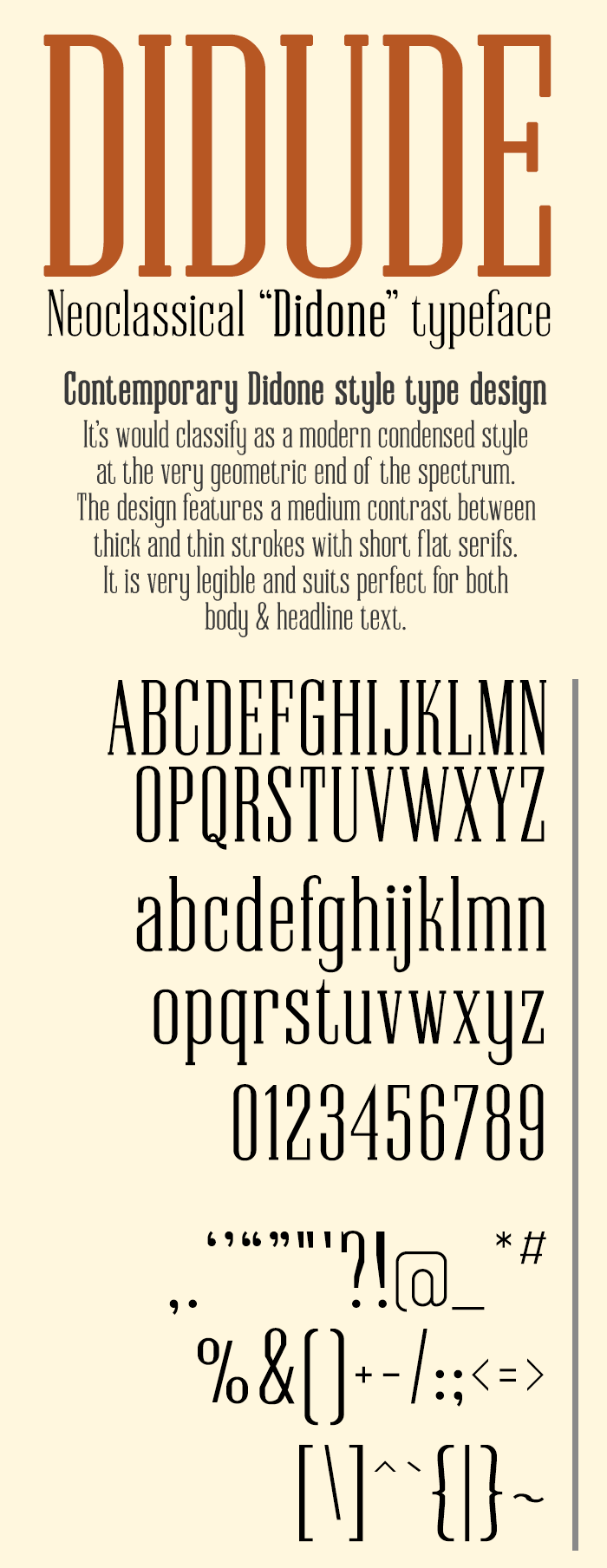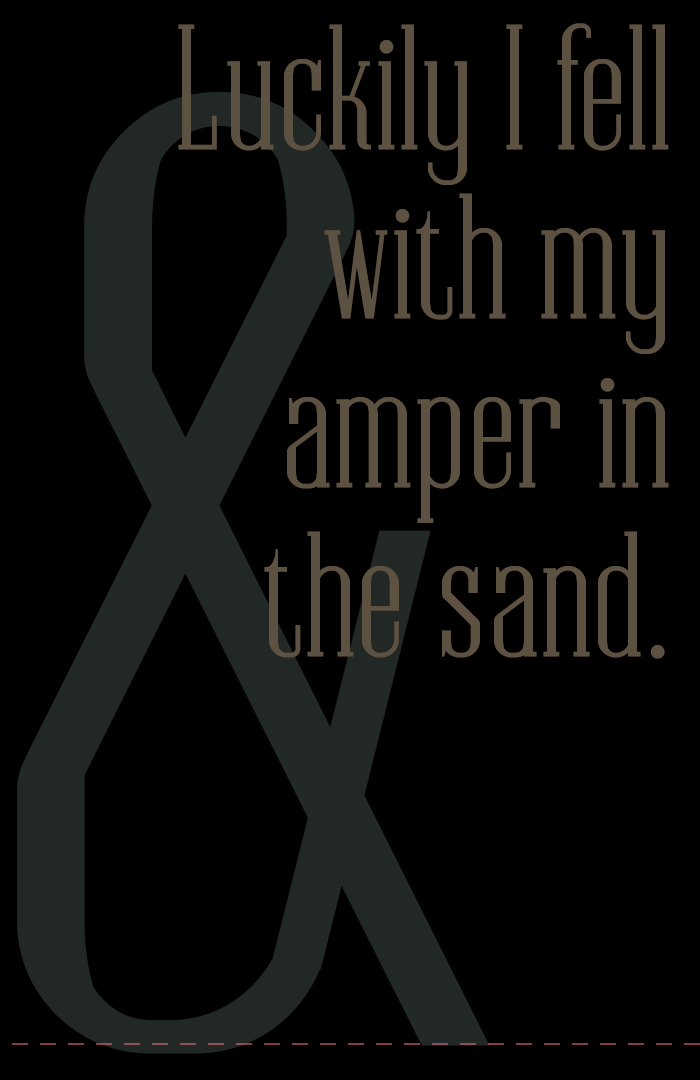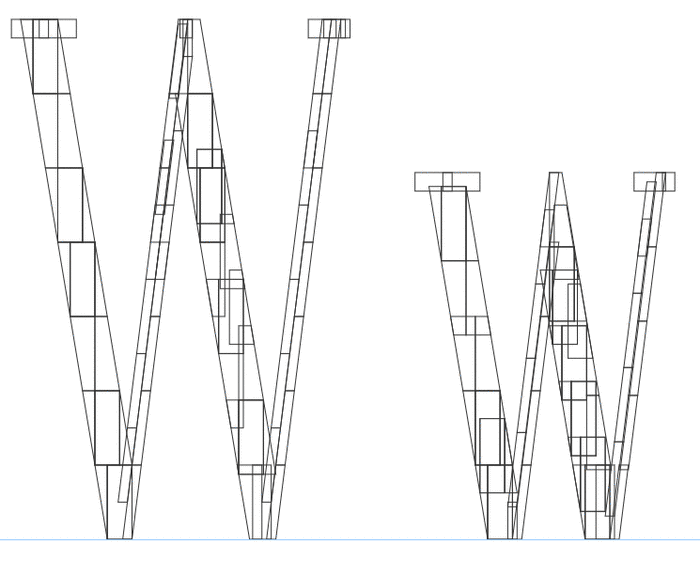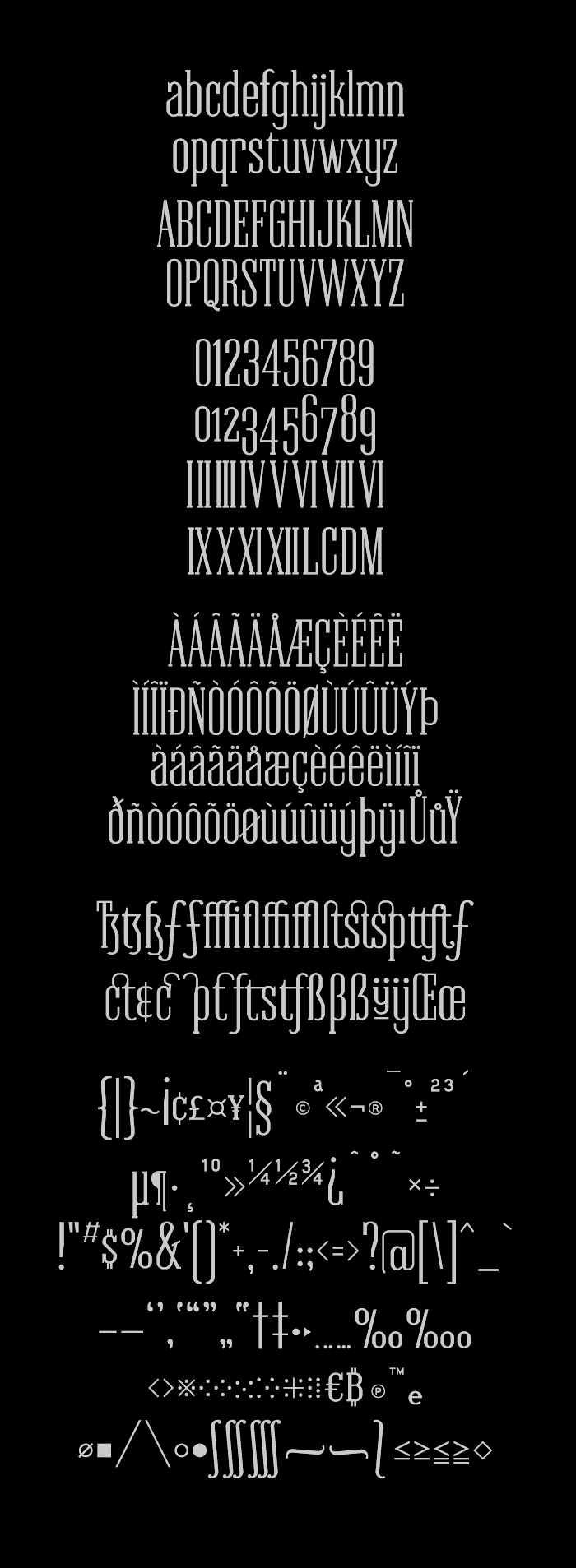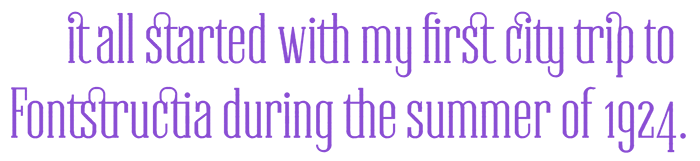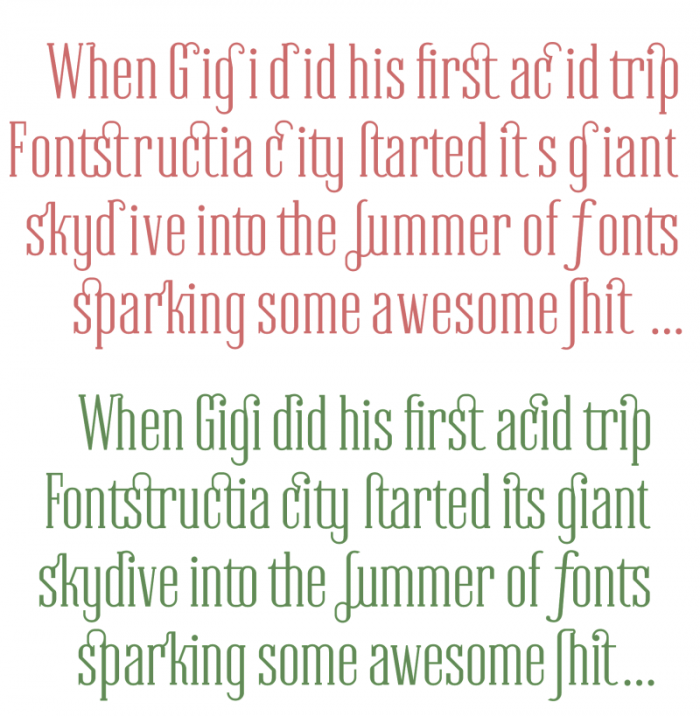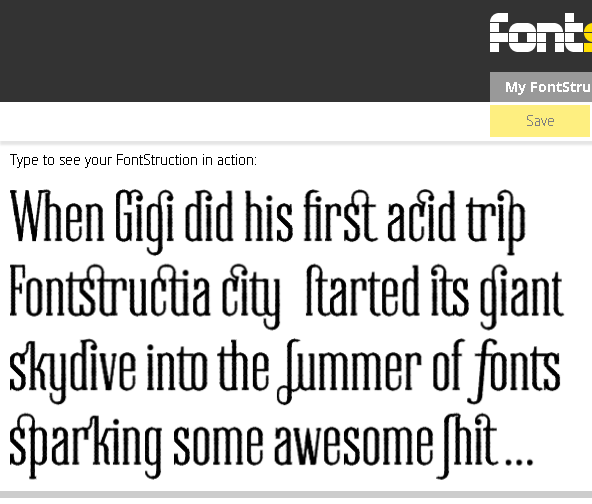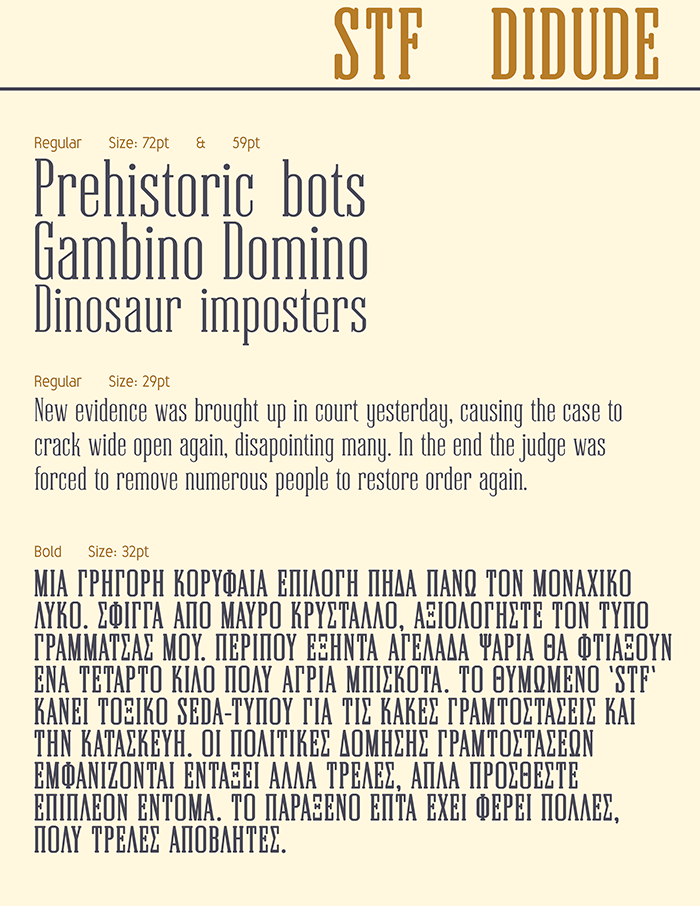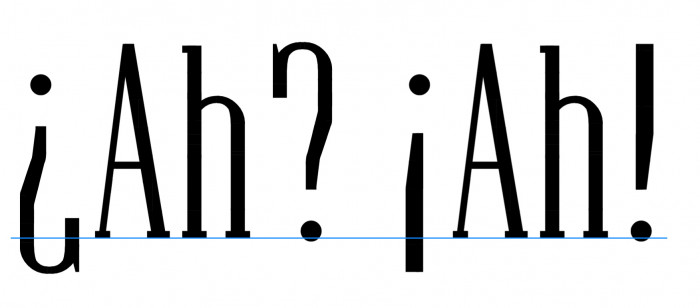
• DIDUDE (Condensed) ― Contemporary Neo-classical "Didone" style serif
The idea revolved around the basic concept for 'Didone'-style typefaces.
A genre characterized by modern unornamented standard letterforms, which was very popular for general-purpose printing during the 19th century. DIDUDE is by no means an attempt to embarge on a quest trying to deliver a conceptual overhaul of this genre. Its main goal was to achieve greater simplicity, without sacrificing that traditional neo-classical personality. Instead of leaning towards the typically more 'Humanist'-influenced style with distinct stroke modulations and proportional forms, geometry and symmetry were introduced to design this more simplified take on the traditional historical style. It has been crafted with a structural logic of its own.
"Less human, more geometry.." A fusion of geometry and neo-classical elements that blends the past with the present.
Main distinctive features for DIDUDE (Condensed) are:
Tall and narrow letterforms with short unbracketed serifs, vertical orientation of weight axes with a strong contrast between thick and thin strokes, slightly squarish-shaped round characters and its emphasized business-like nature. So the majority of important characteristics that distinguish the neo-classical style have been incorporated.
Certain features that were implemented into DIDUDE's design are somewhat setting it apart from most other, more traditional typefaces in this genre, and most notable is the more relaxed contrast ratio that was choosen for this particular project.
Further personalizing touches were made to stroke endings and curve geometry, providing slight 'calligraphy'-inspired decorative variation with occasional spurs, breaks, curved finials and plain monolinear terminals.
Topping it all off with an ever so gentle height deviation that sparks a subtle rhythm to any line of text. Last but not least, most of the optical clunkiness was addressed and either corrected or compensated.
There is a large character set that includes a little bit of everything:
Basic latin character set, latin-1 supplement set, stylistic ligatures and glyph alternatives, punctuation marks, lining and non-lining text figures, roman numerals, (Partial) Greek and Cyrillic, also numerous non-lingual technical, mathematical and decorative stuff was included.
Only partially kerning for now and this remains a WIP.
Excellent work! The 4 just looks a tad too wide and sharp compared to other characters, and the "a" within @ could be thicker.
You're right, there are a couple of characters that still need some slight modifications to get them to look better and fitting the rest. 4 is certainly one of those. But maintaining the proper stoke widths as well as translating them to the required angle at the same time proved to be very tricky for some glyphs. Therefor better solutions remain pending for now until I figured it. It remains undownloadable as well untill I feel confident about it to be right!
I am pretty sure I solved "4" now. :)
A lot of new stuff has been added during the last couple of days... It remains under development still  :)
very beautiful and sophisticated
i like that there are several types of numbers :)
Actually I'am finally having the end of it in sight, after several days of excesive kerning and various other background work. I think I have done roughly about 50.000/60.000 pairs so far.
Lovely condensed serif font with an admirable character set. Tons of work, and careful tinkering with custom bricks. Kudos for the outline views. Question: Why do you exhaust yourself with 50-60 000 kerning pairs in Fontstruct? There are better ways to do kerning, even for perfectionists. Look for kerning groups or kerning classes in Glyphs or FontLab, respectively. Saves a lot of time. Great work. 10/10
@Frodo: First of all thanks for your kind words!  I know there are much more efficient ways for doing this, I am a FontLab studio user as well. The thing for me is that I want my works to look good here at Fontstruct as well. And usually I do just the most important pairs to provide at least good looking font preview modes on the website. This time it seriously got out of hand and I got dragged away by my own obsesive drive for perfection. I can most certainly tell this was a first, and most definitely the last as well.
The joy I nomally find in Fontstructing dropped far bellow zero on this font.
very pretty!